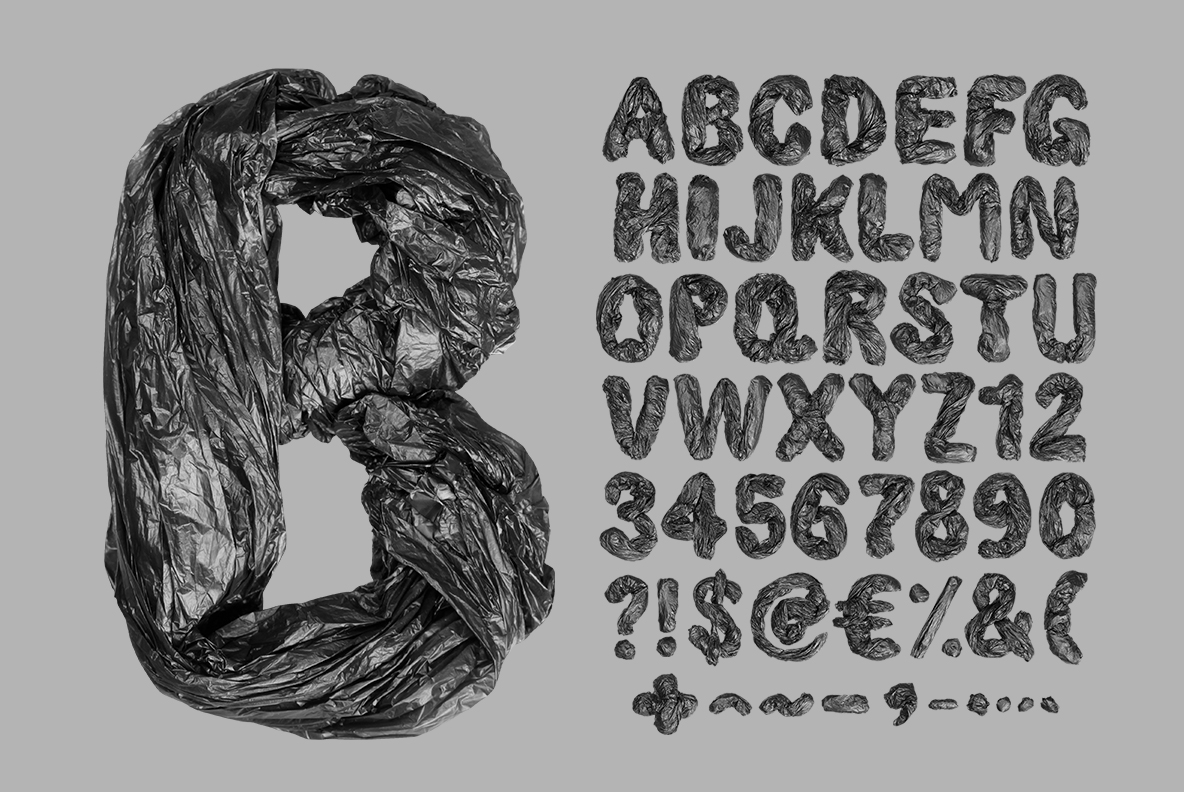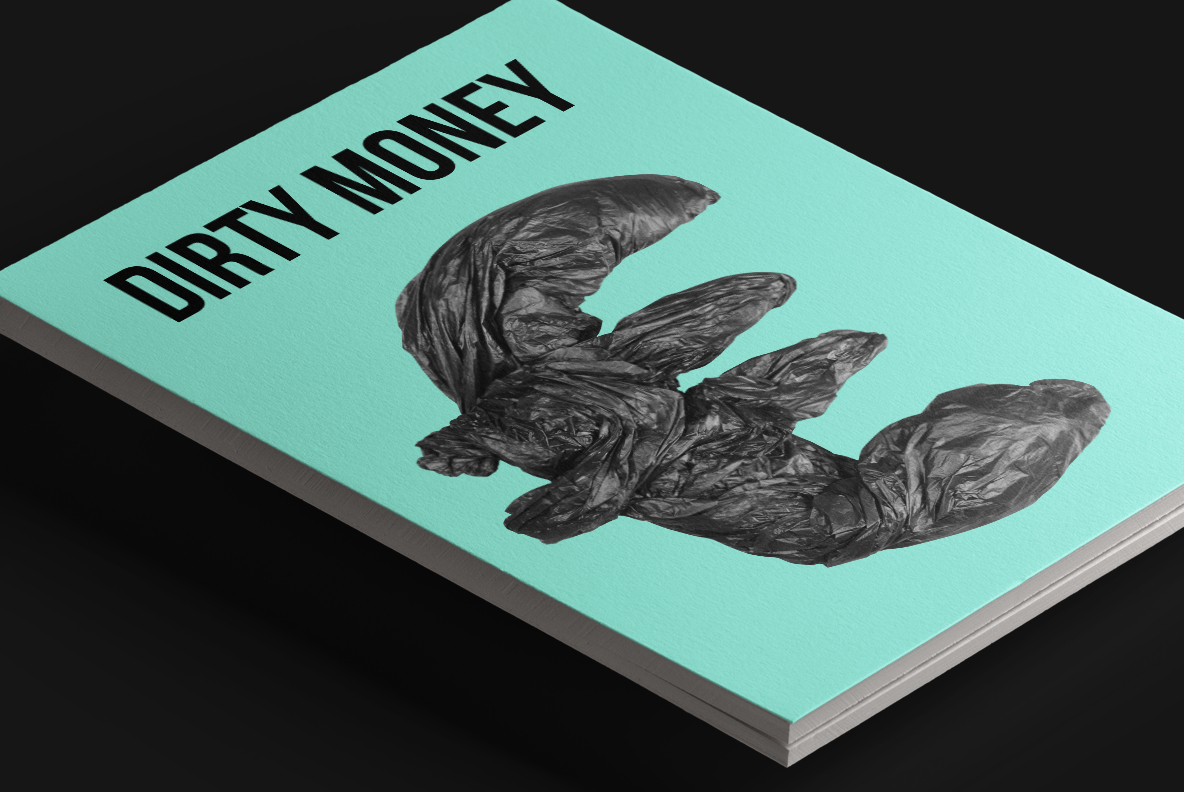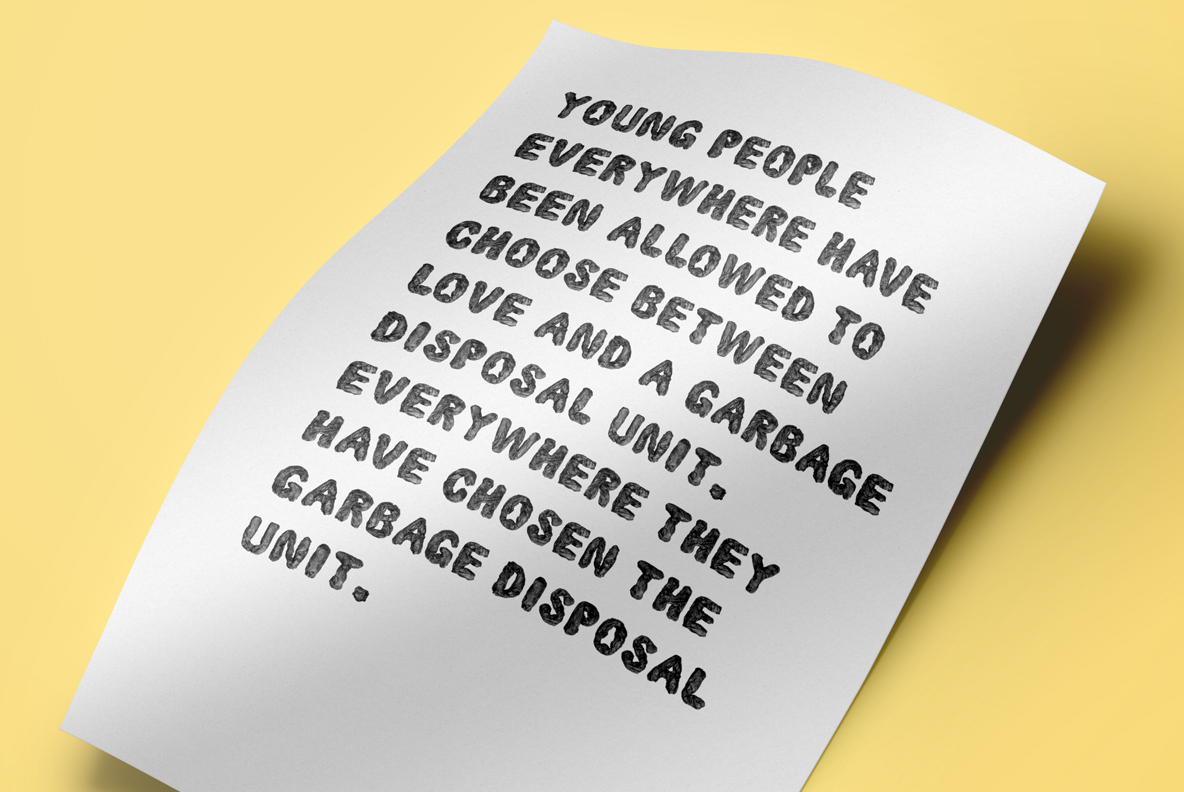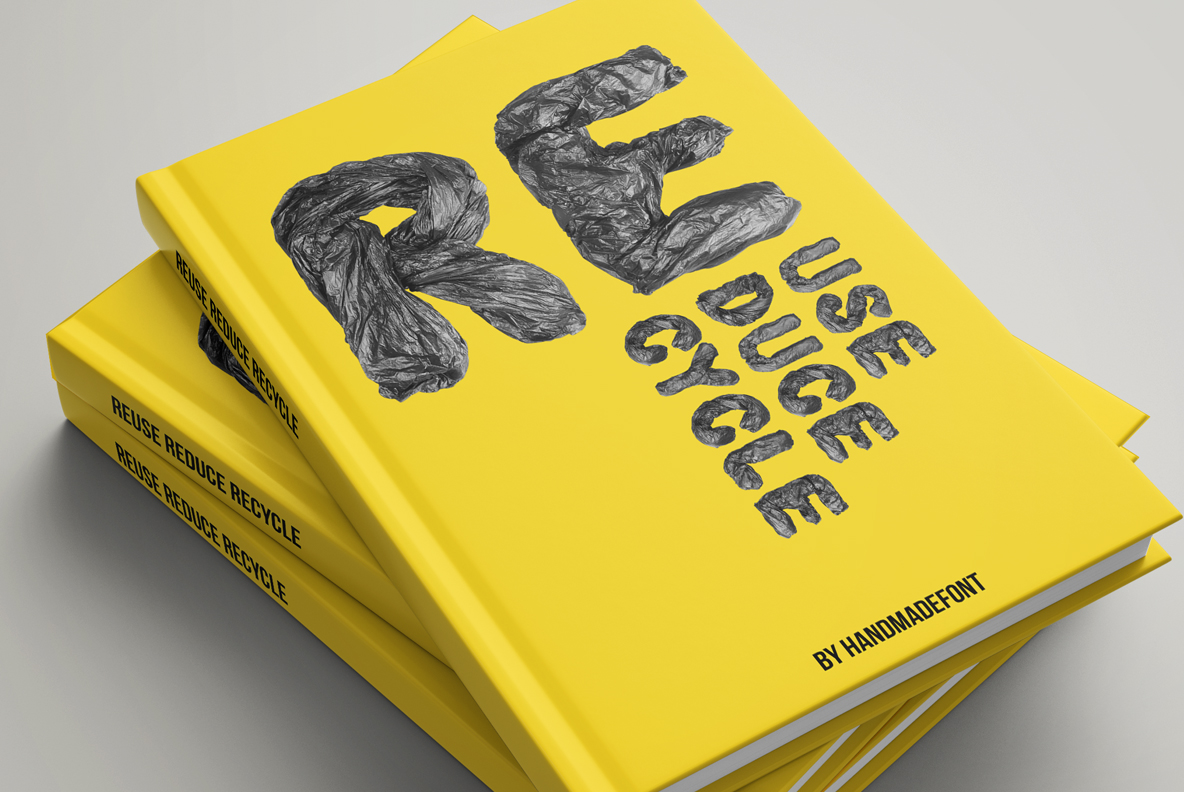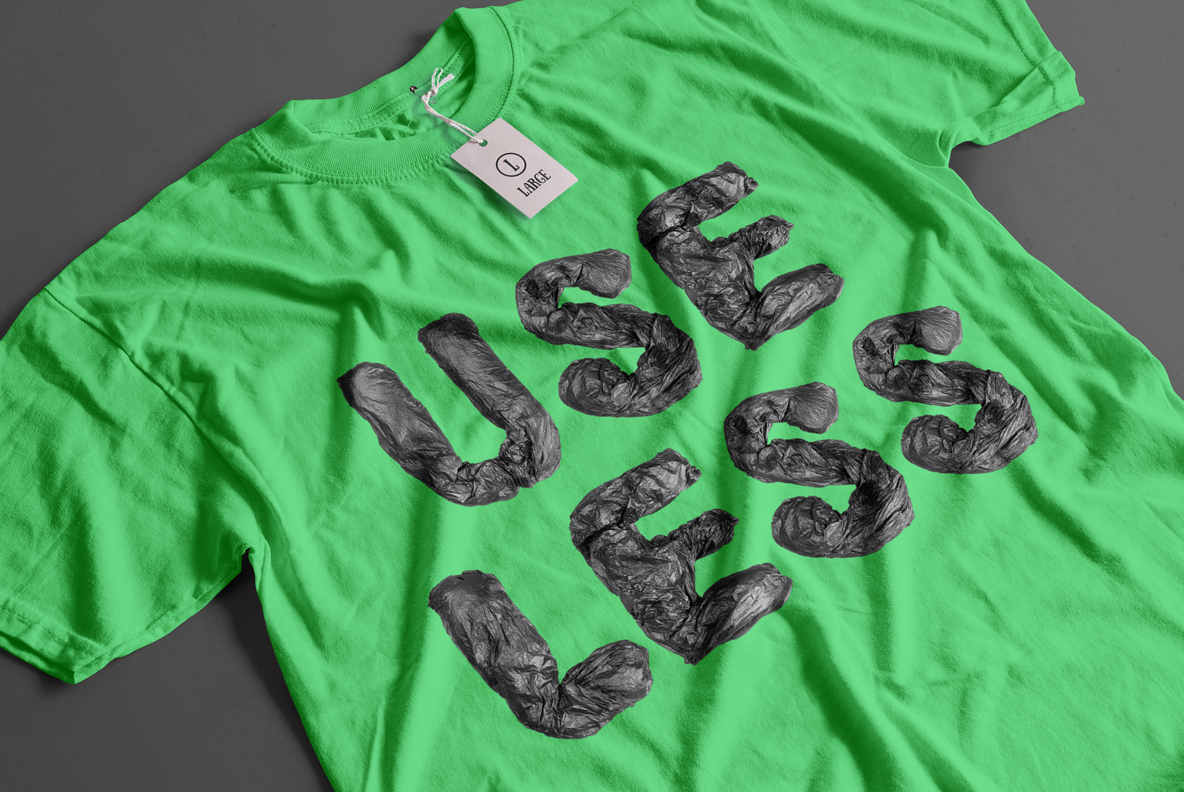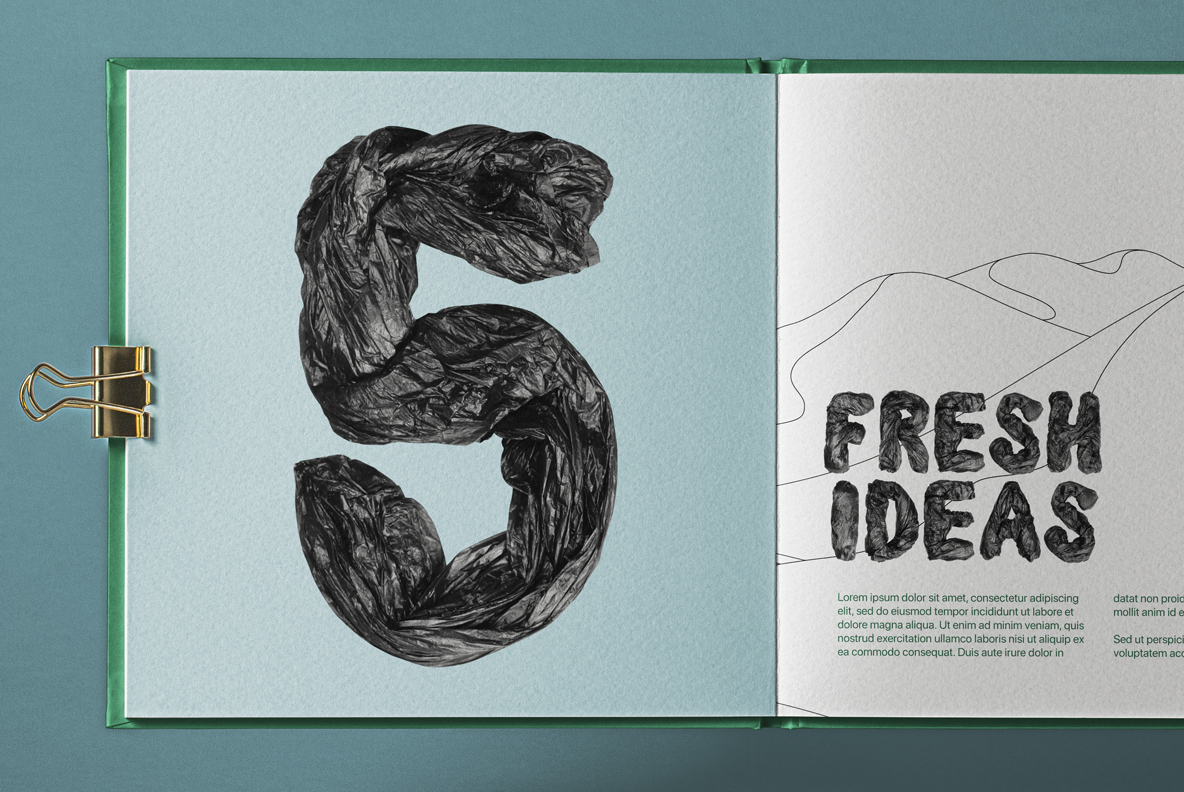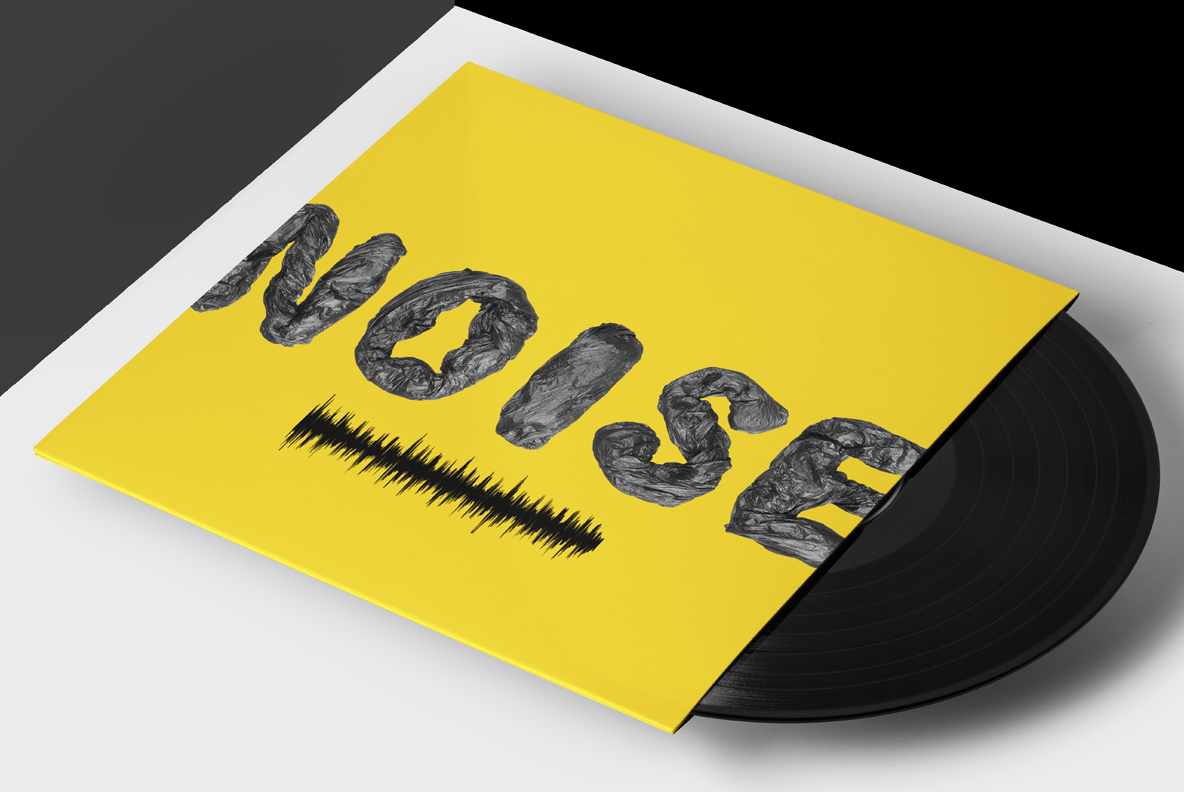
Garbage Pack Font. Crushed Black Bin-Liner Letters
Black bin liners, emptied and screwed up until they hold a letter. There is nothing inside to keep them out, so the plastic collapses into a mess of fine creases. Hard highlights skid along the folds while the flat parts stay dull. Edges tear rather than cut. It is grubby, loud and completely on purpose.
An Empty Bag, Screwed Up
Empty bin liners, screwed up and pushed into shape. Nothing inside holds these letters out, so the plastic collapses into dense little wrinkles everywhere. Highlights skid along the sharp folds, while the flat patches stay almost matte. Edges finish ragged rather than cut, because a bag tears where it wants to. The Garbage Pack Font reads as black, though a grey sheen keeps it off pure black. Every glyph looks handled, obviously.
Crushed but Still Bold
Crumpled plastic could easily lose a letterform, so the Garbage Pack Font sits on a heavy, wide skeleton underneath. Stems keep their width where the folds bunch up. Counters stay open, since a closed bowl would read as a black lump. The wrinkle scale changes from letter to letter, therefore nothing repeats visibly. Contrast runs fierce, of course: hard white highlights against near-black plastic.
Animated preview showing crumpled black bin-liner letters of the Garbage Pack Font
Where Garbage Pack Font Fits
Waste is the subject and the material at once. Recycling campaigns, waste-management brands, environmental documentaries and protest posters all take it, since the letters argue the point before the copy does. Punk and noise record sleeves suit it too, obviously. It also works wherever something wants to look cheap on purpose, because nothing reads cheaper than a bin bag. At small sizes the wrinkles turn to noise, therefore go large. Keep the ground light, so the black separates.
Yellow poster reading FONT in the Garbage Pack Font above a small opentype label
Letter B of the Garbage Pack Font beside the full alphabet and numerals on grey
Teal book cover mockup with a large crumpled letter from the Garbage Pack Font
Yellow and white cards carrying a paragraph about waste set in the Garbage Pack Font
Stack of yellow books with a two-word title set in the Garbage Pack Font
Green t-shirt printed with two short words in the Garbage Pack Font
Open book spread with a large bin-liner letter from the Garbage Pack Font beside a heading
Yellow record sleeve and vinyl printed with one word in the Garbage Pack Font
Letters A to D and digits of the Garbage Pack Font on a transparent checkered background